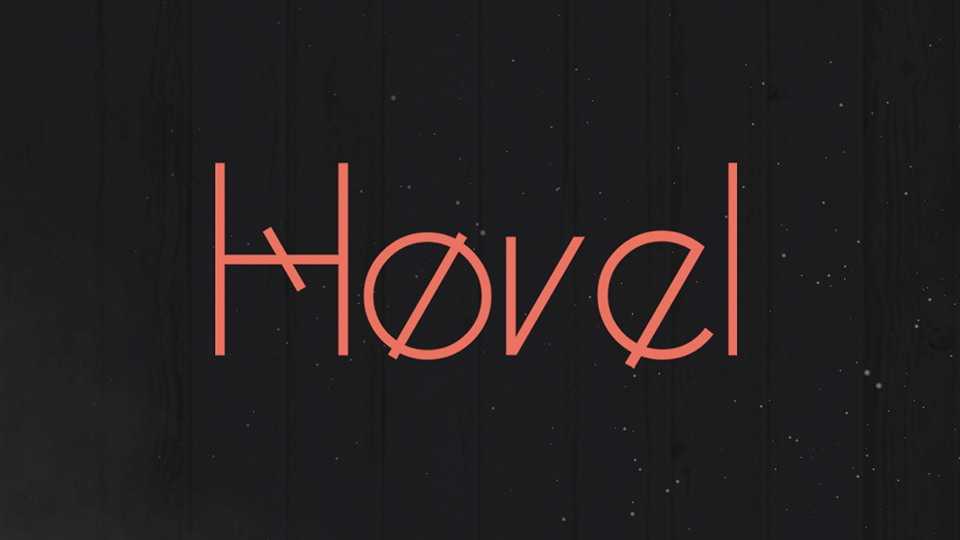
Download Hovel font, a wild free typeface with creative geometric forms. Hovel font is great for unique prints, posters, short messages, branding and other artworks.
Designer: Sergey Karas